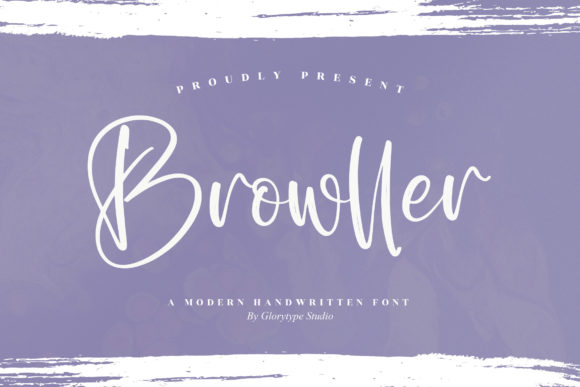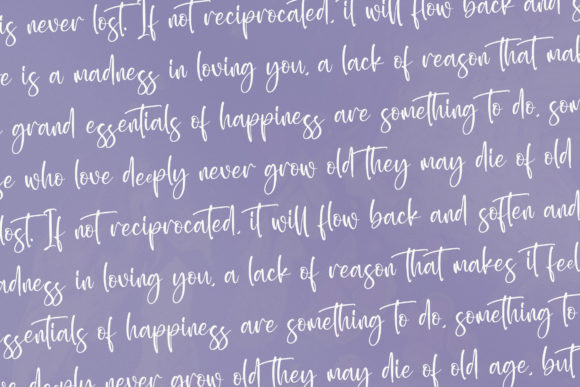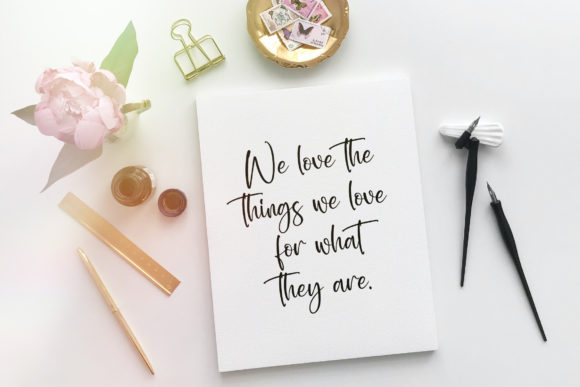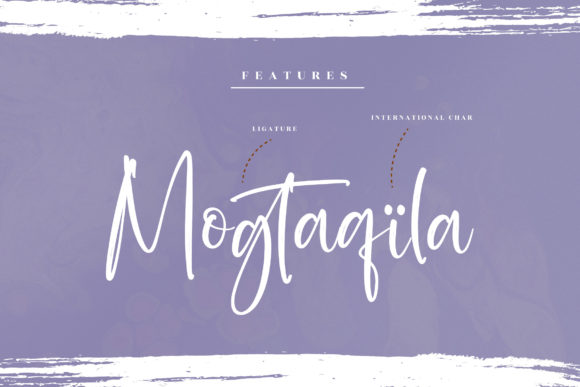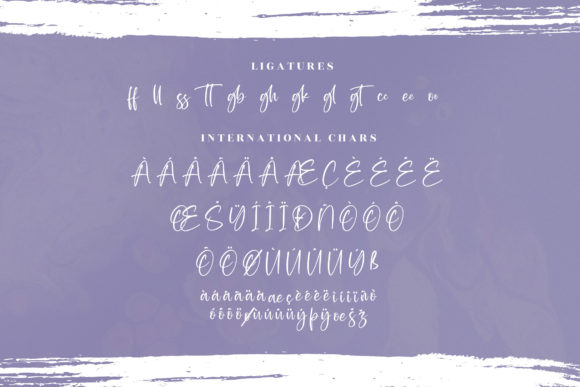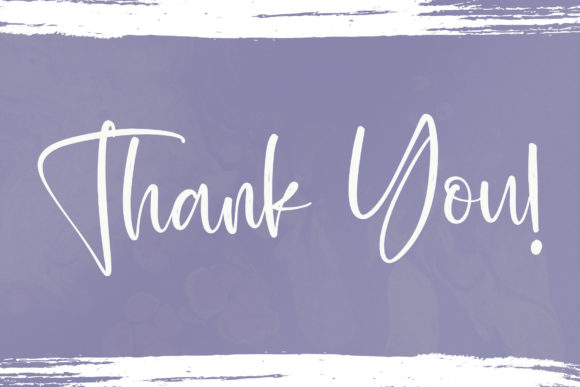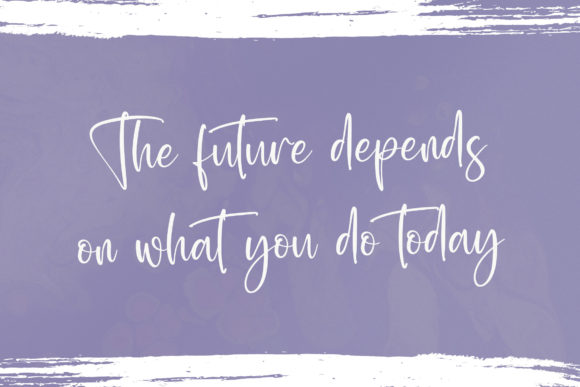
Browller Font
About Browller Font
Browller is a fashionable and relaxed script font. Featuring characters that dance along the baseline, this font will add a luxury spark to any design project that you wish to create!